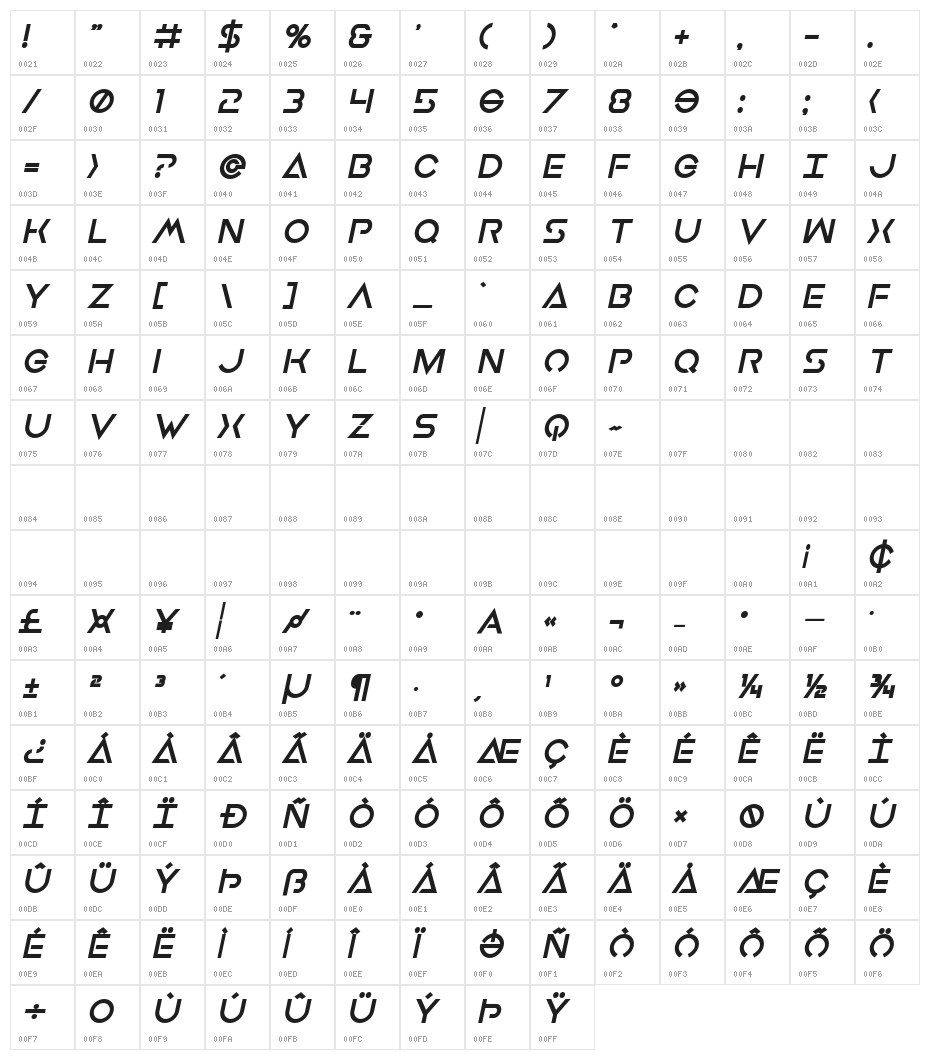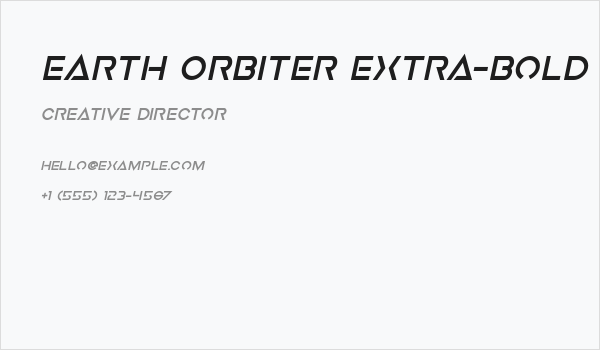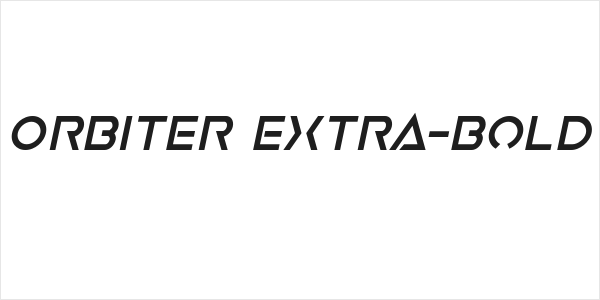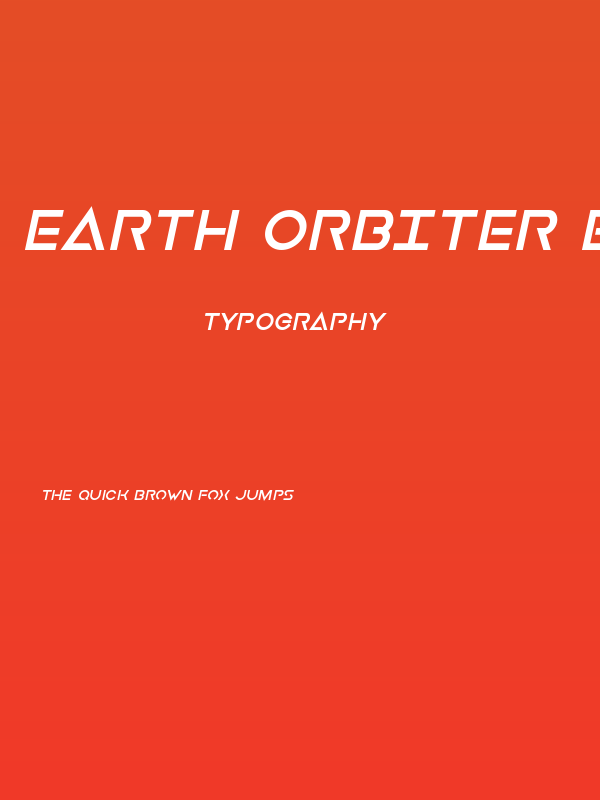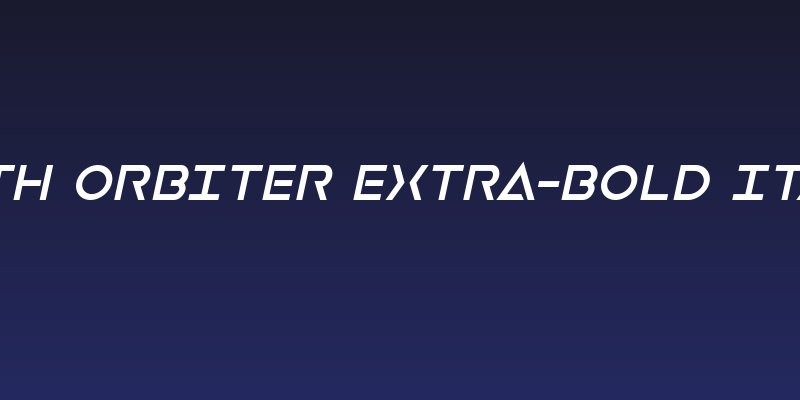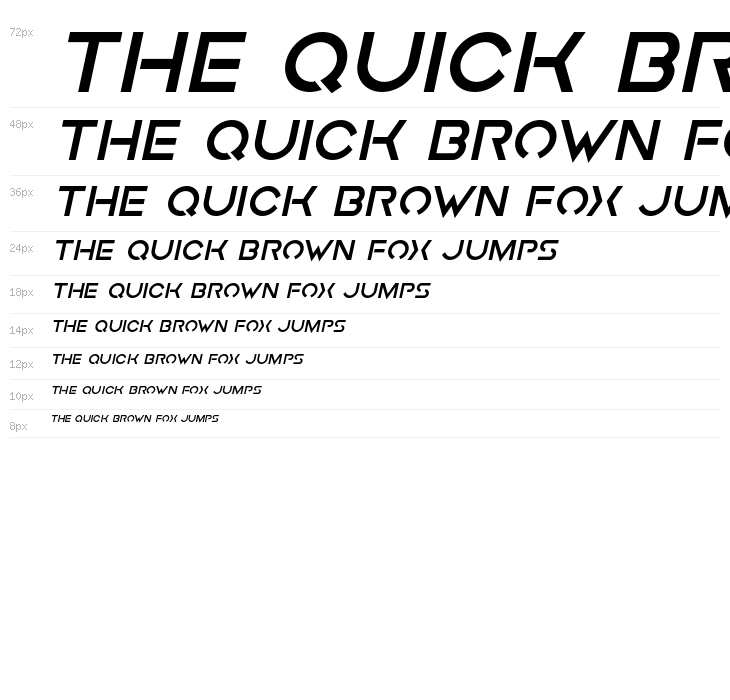
Earth Orbiter Extra-Bold Italic Font
Earth Orbiter Extra-Bold Italic Description
This font features a futuristic and dynamic design, characterized by its bold and italicized letterforms. The angular and geometric shapes give it a modern and technological feel, making it stand out with its strong presence. The uppercase and lowercase letters maintain a consistent style, with sharp edges and a slight slant that adds to its energetic appearance. The numbers and special characters follow the same design principles, ensuring uniformity across all glyphs. This font's unique style is perfect for projects that require a bold and forward-thinking aesthetic.